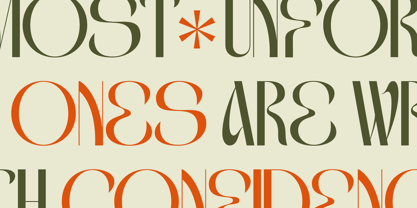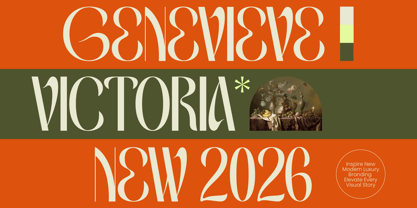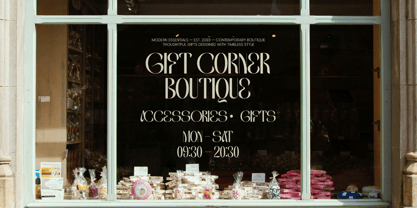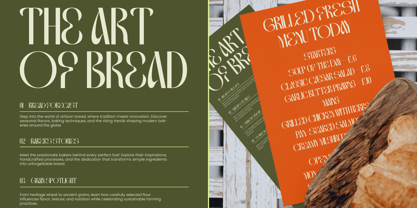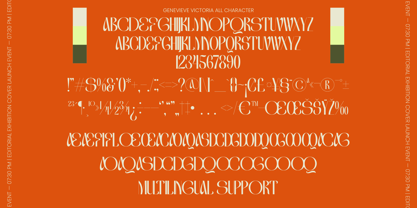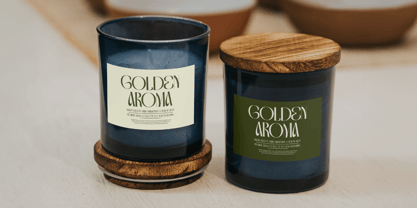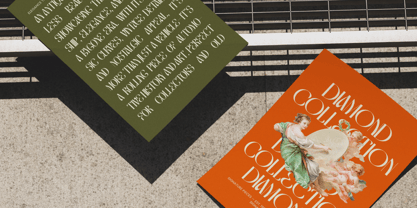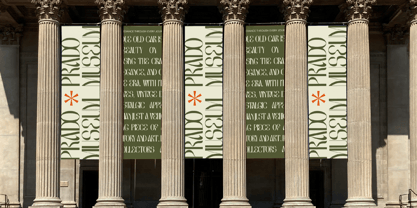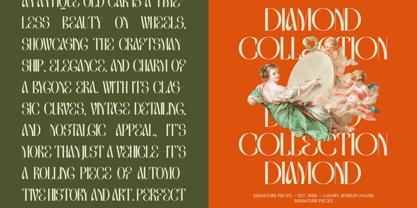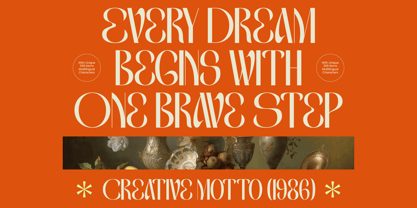
Genevieve Victoria
Genevieve Victoria is a masterclass in high-contrast elegance, designed to command attention with its fluid curves and sophisticated presence. This display serif transcends ordinary typography to become a centerpiece of visual storytelling for the discerning creator.
Drawing inspiration from the romanticism of classical art and the bold geometry of mid-century editorial design, this typeface evokes a sense of timeless luxury. It captures the atmosphere of a high-end gallery opening, where every curve tells a story of craftsmanship and heritage.
This modern serif display exudes a confidence that is perfect for projects requiring high luxury typography. Its high-contrast serif strokes create a rhythmic flow that ensures maximum editorial font quality and significant branding impact across digital and print mediums.